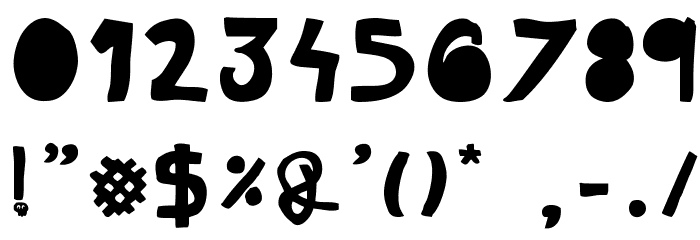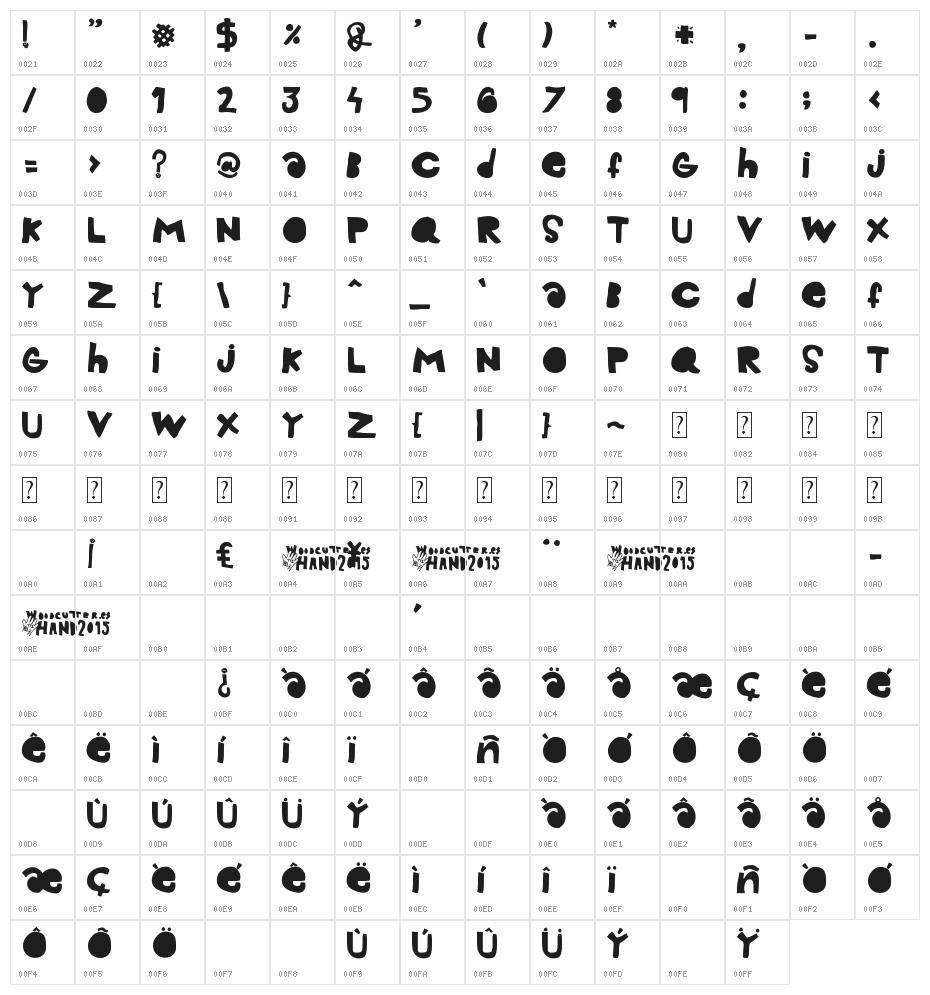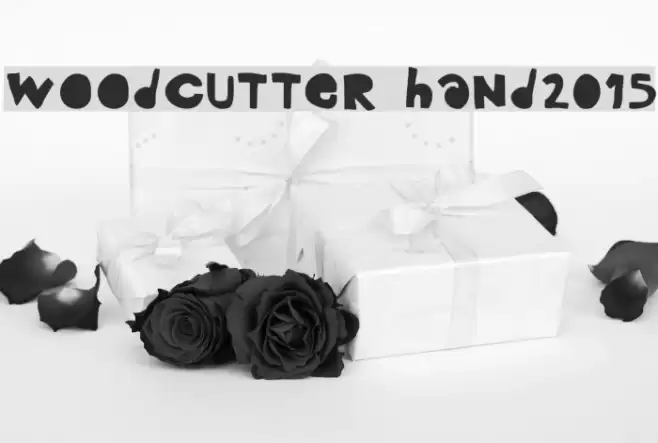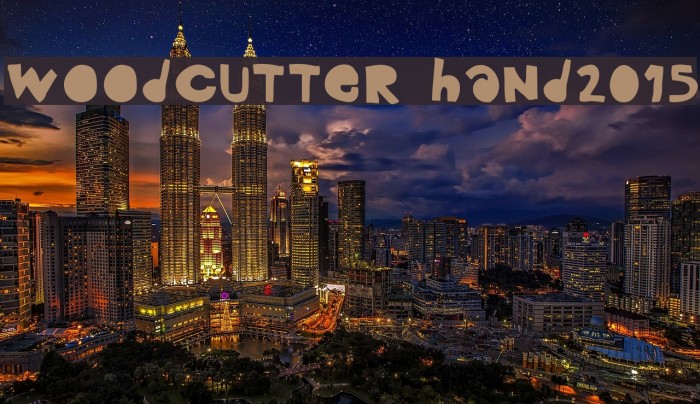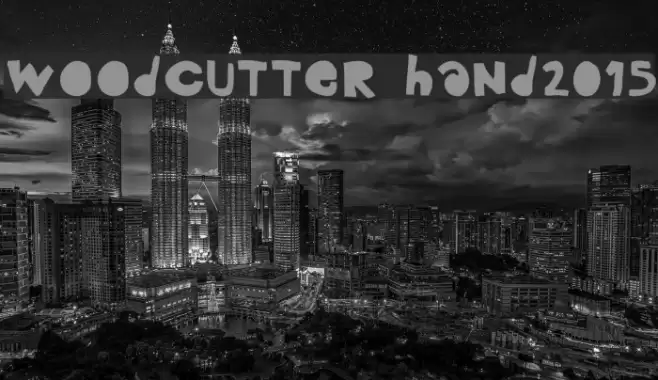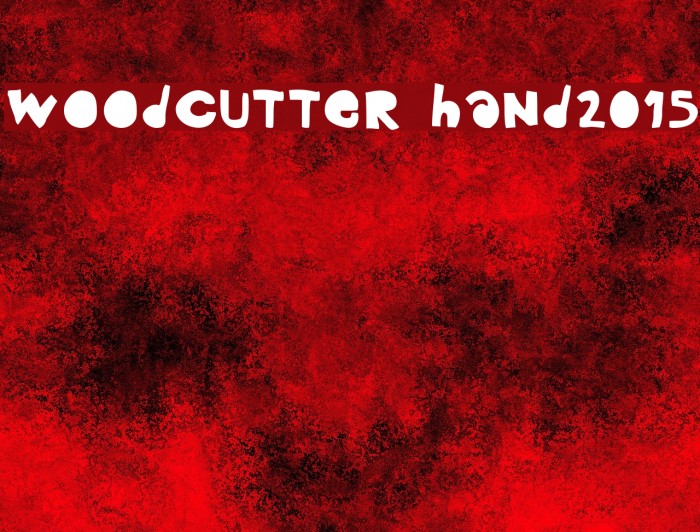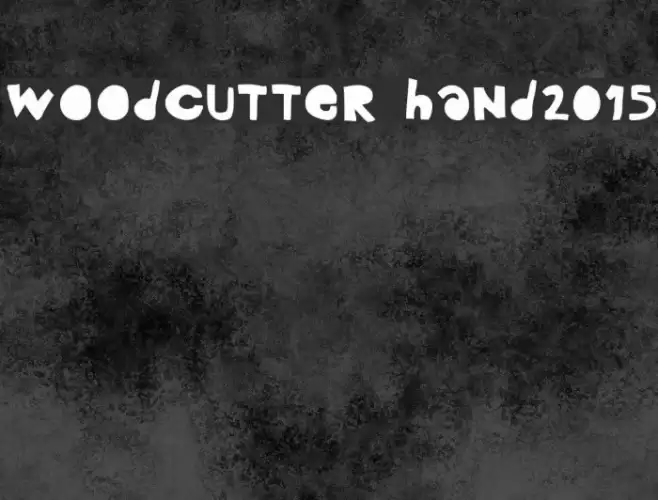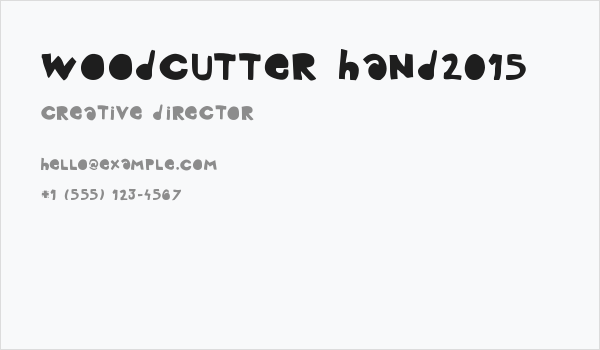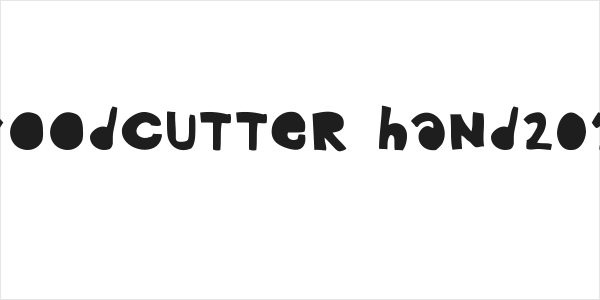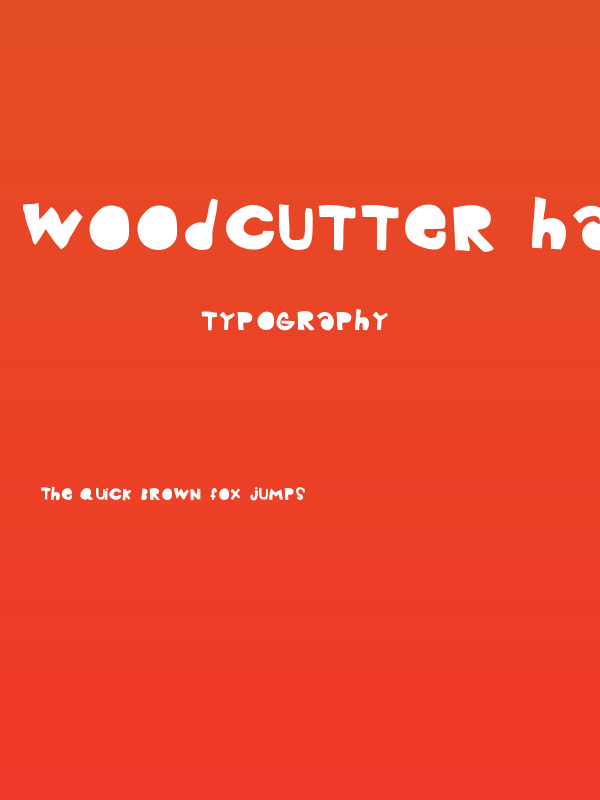
woodcutter hand2015 Font
woodcutter hand2015 Description
This playful and bold font features a hand-drawn aesthetic with irregular, organic shapes that give it a whimsical and artistic feel. The letters are characterized by their thick, uneven strokes and a slightly tilted appearance, creating a sense of movement and spontaneity. The font includes both uppercase and lowercase letters, numbers, and a variety of special characters, all maintaining the same quirky style. Its unique design makes it stand out, perfect for projects that require a touch of creativity and fun.
| Overall Style | Whimsical, Artistic |
| Use Case | Headlines, Posters, Creative Projects |
| Proposed Projects | Ideal for children's books, playful branding, creative posters, and artistic invitations. |